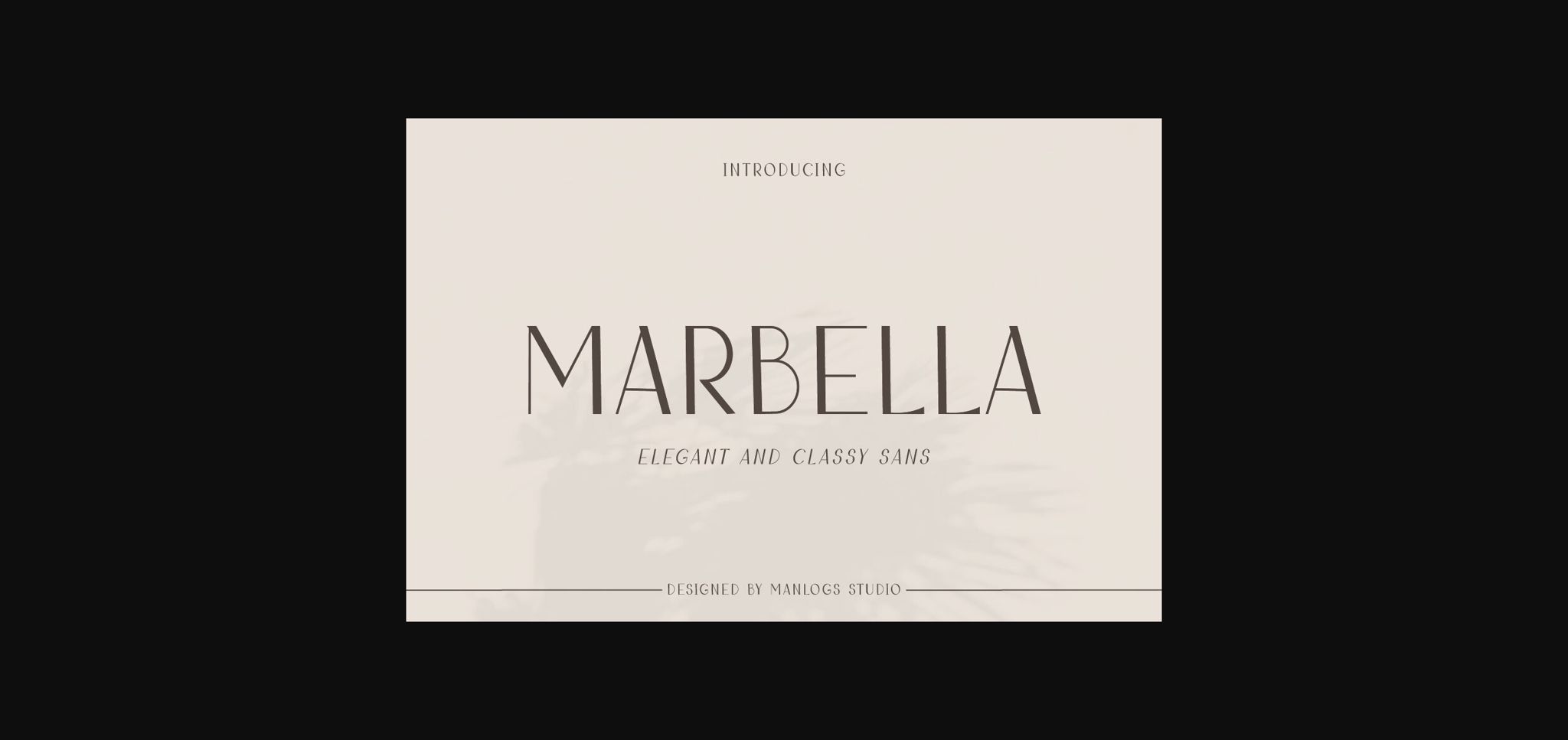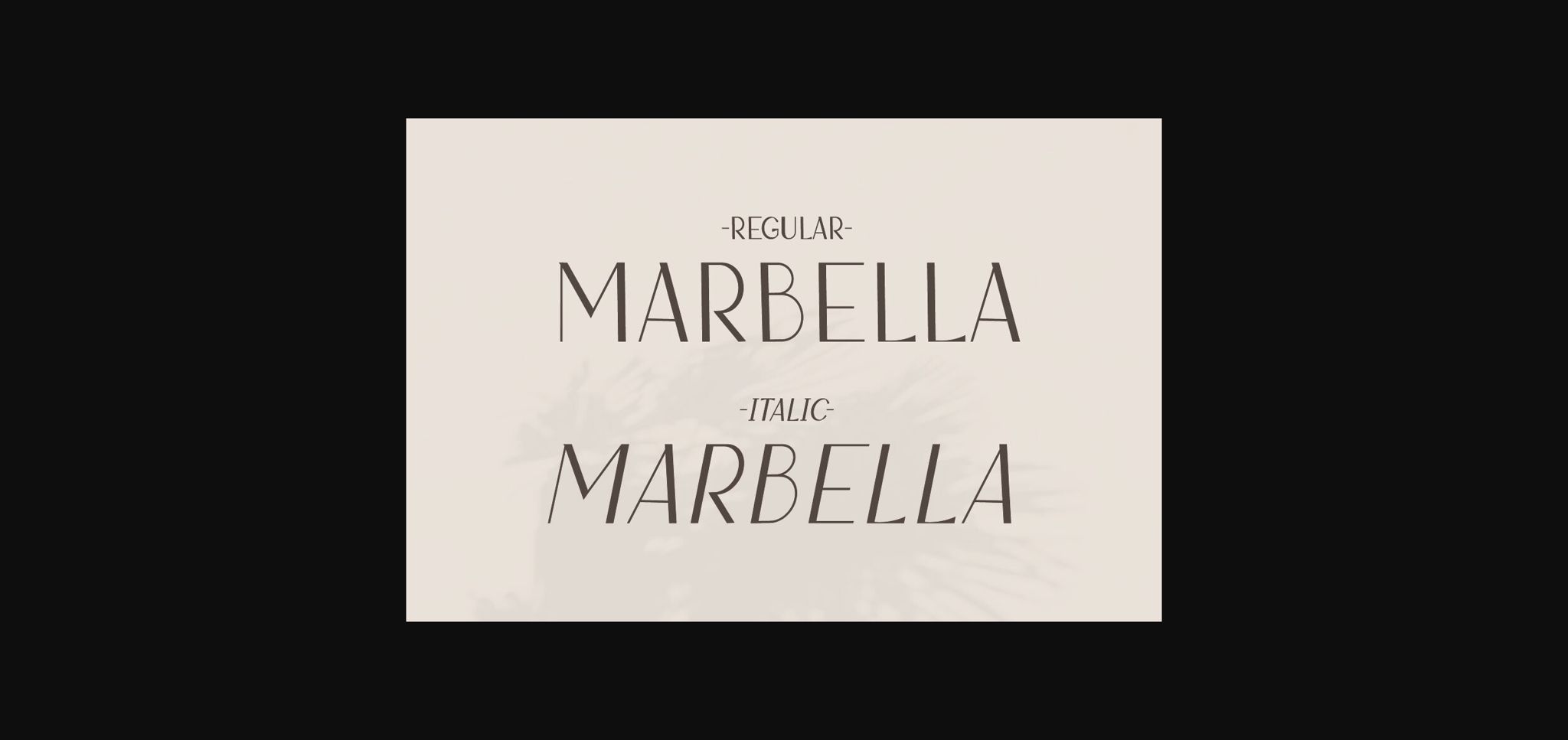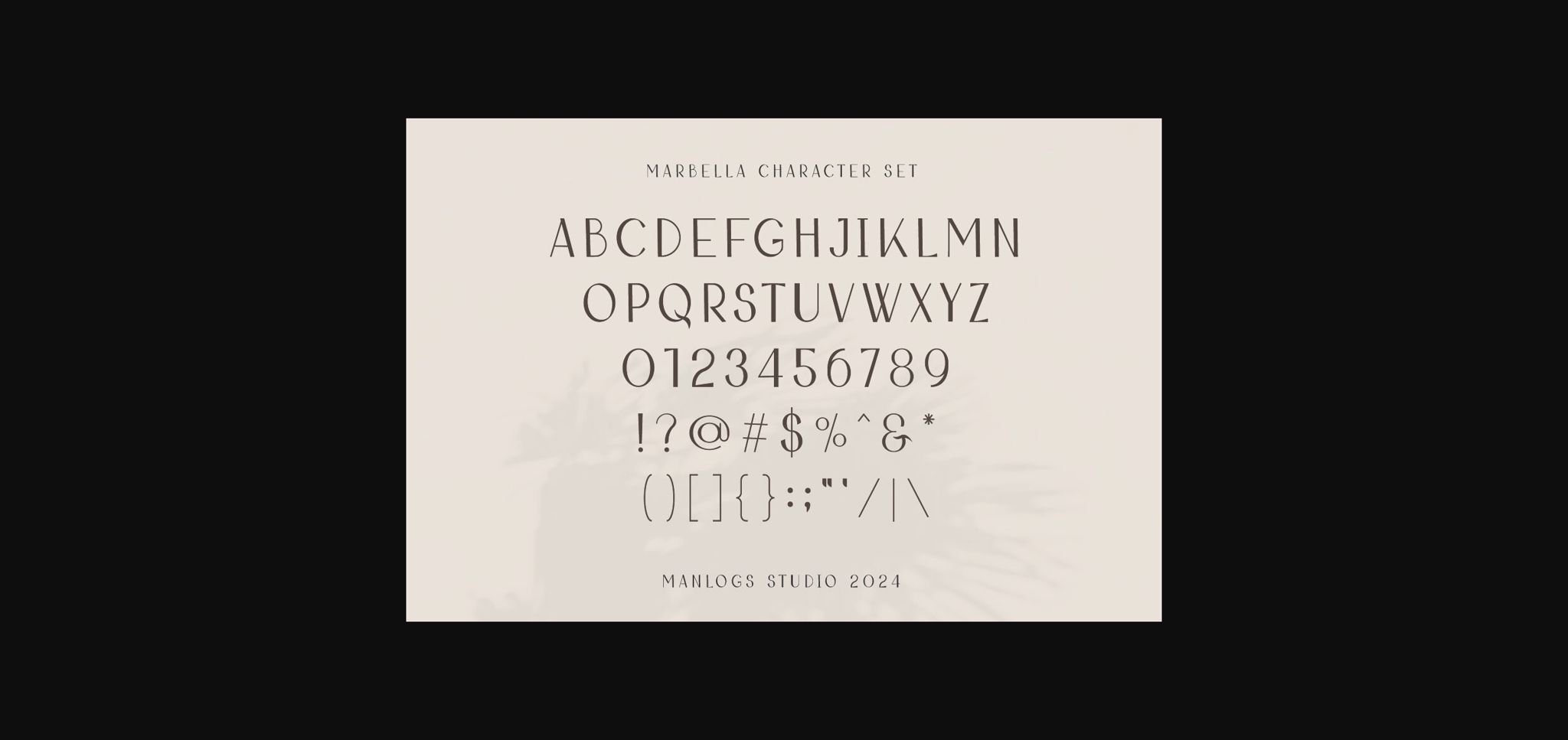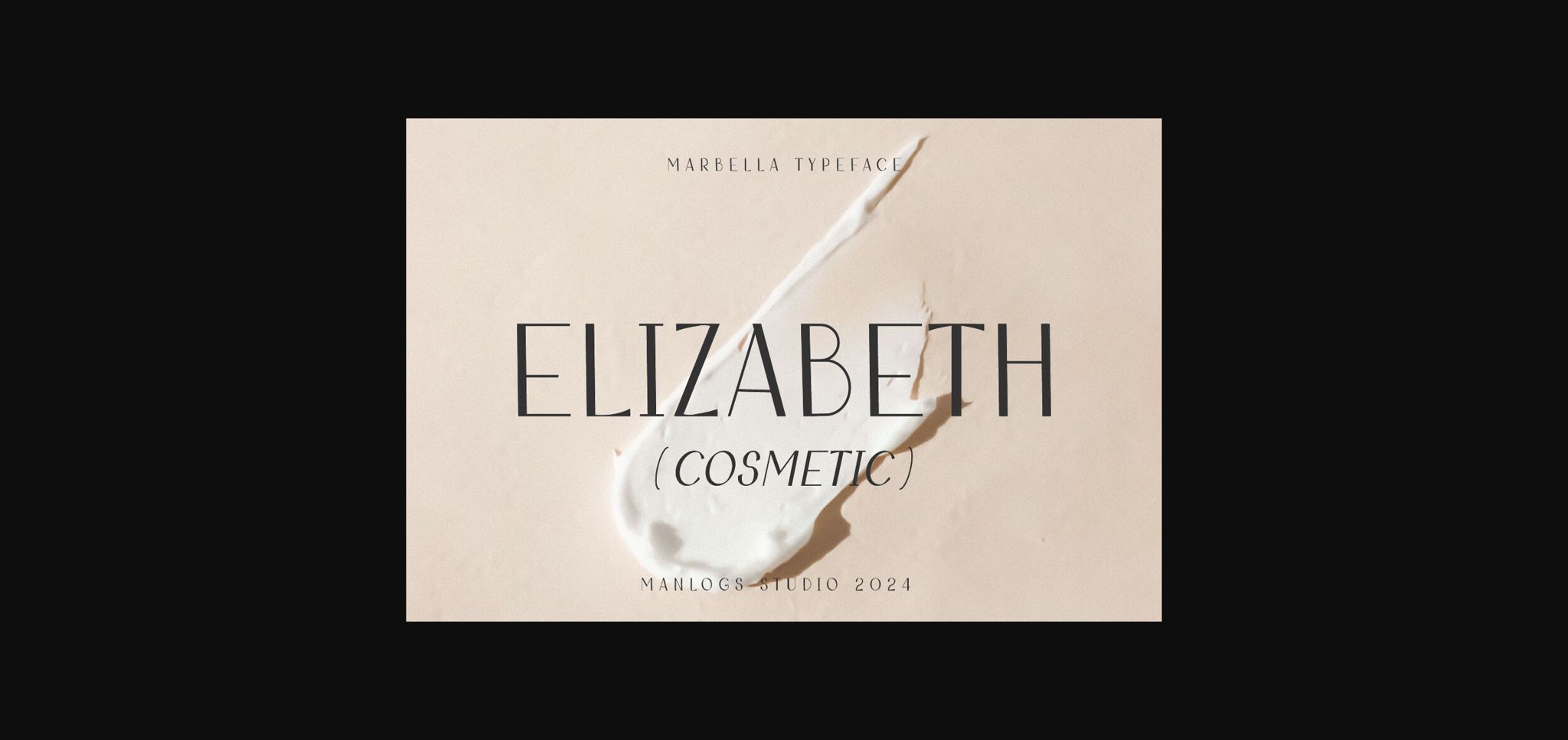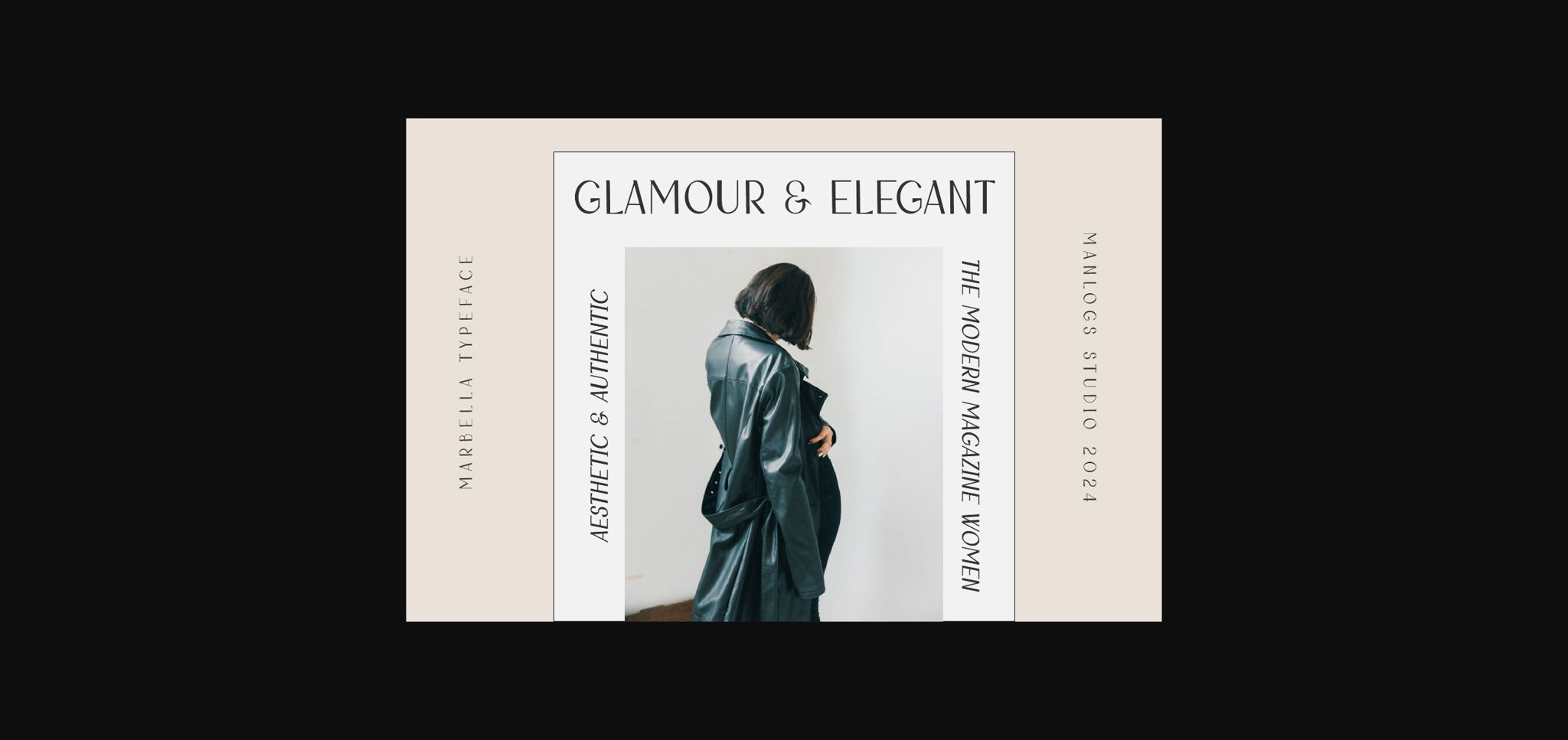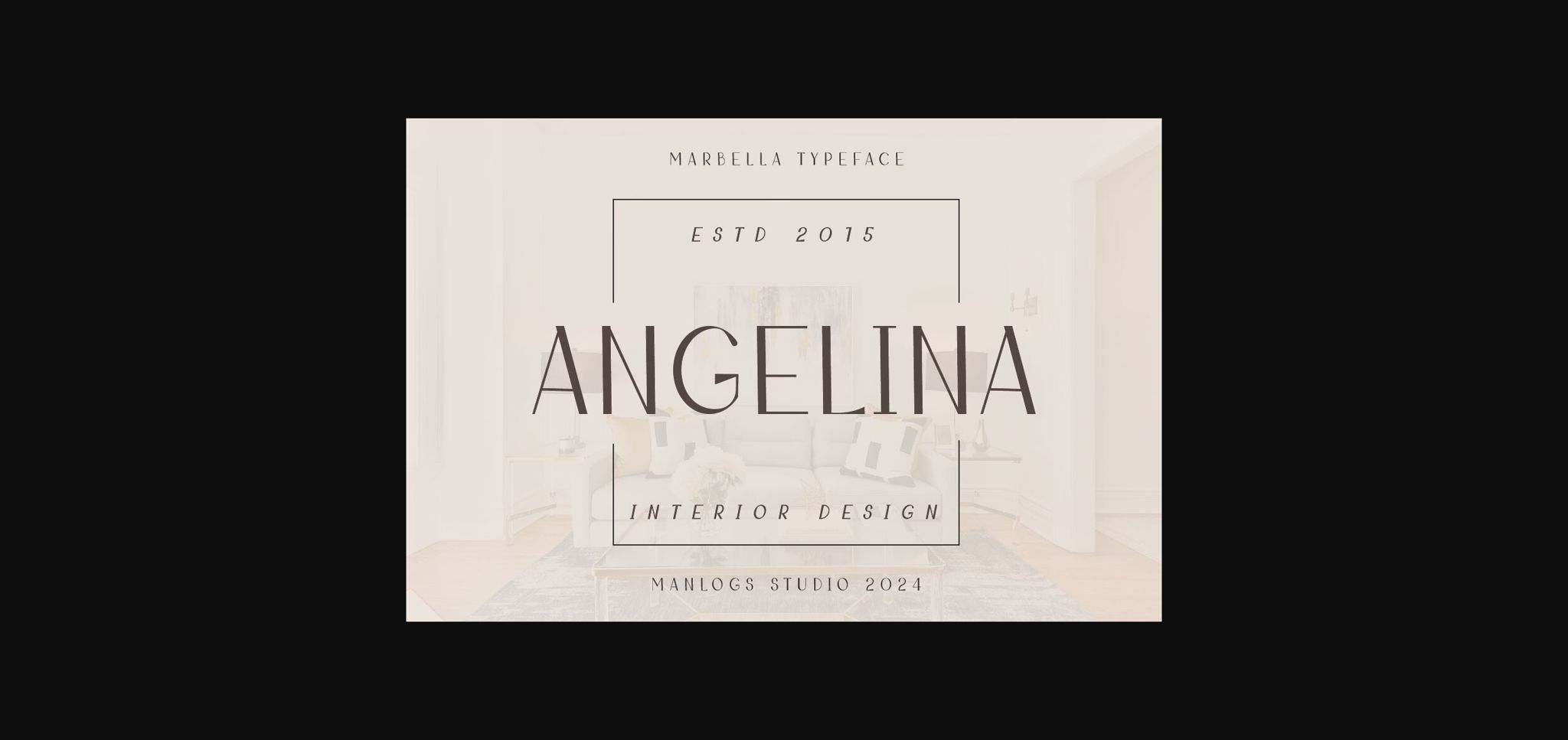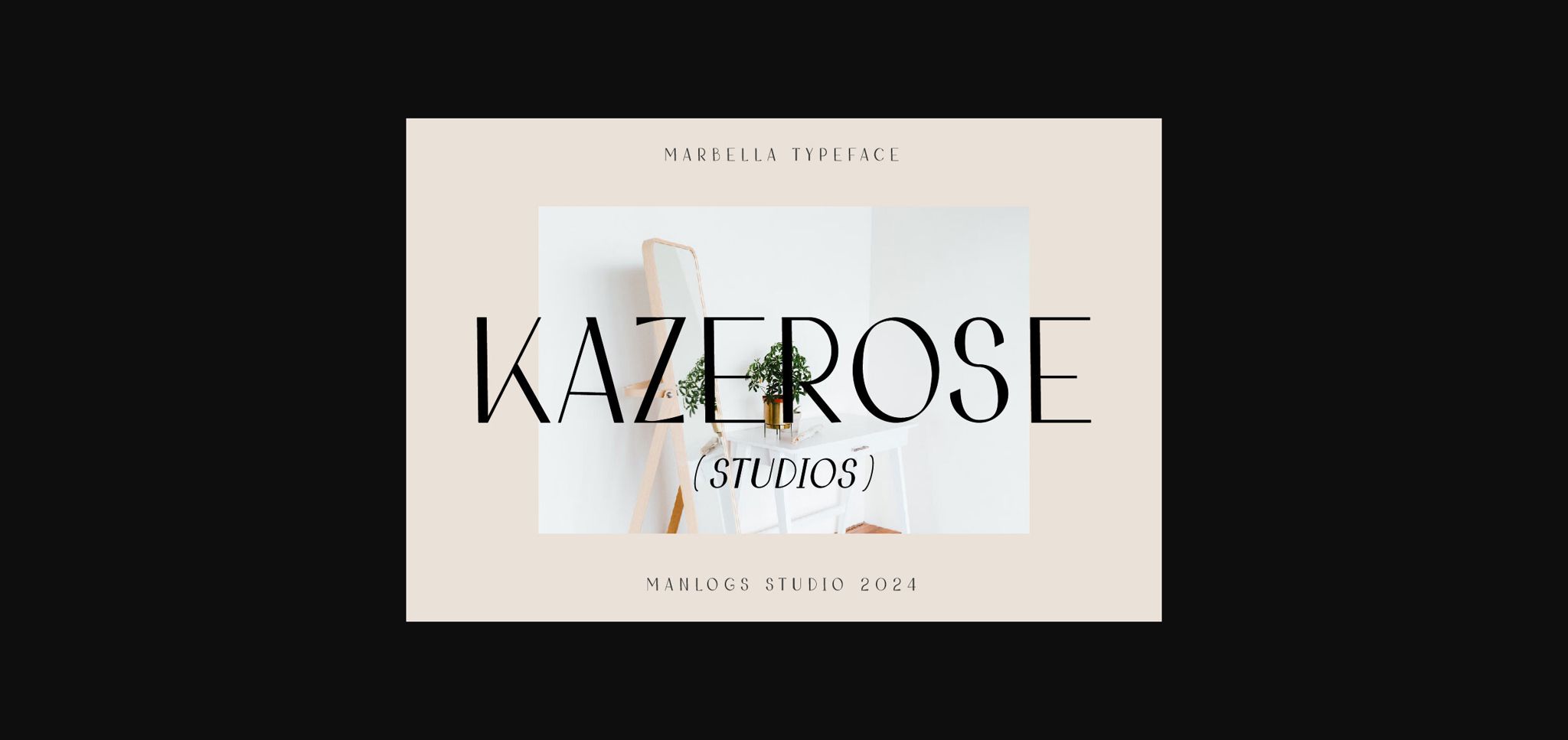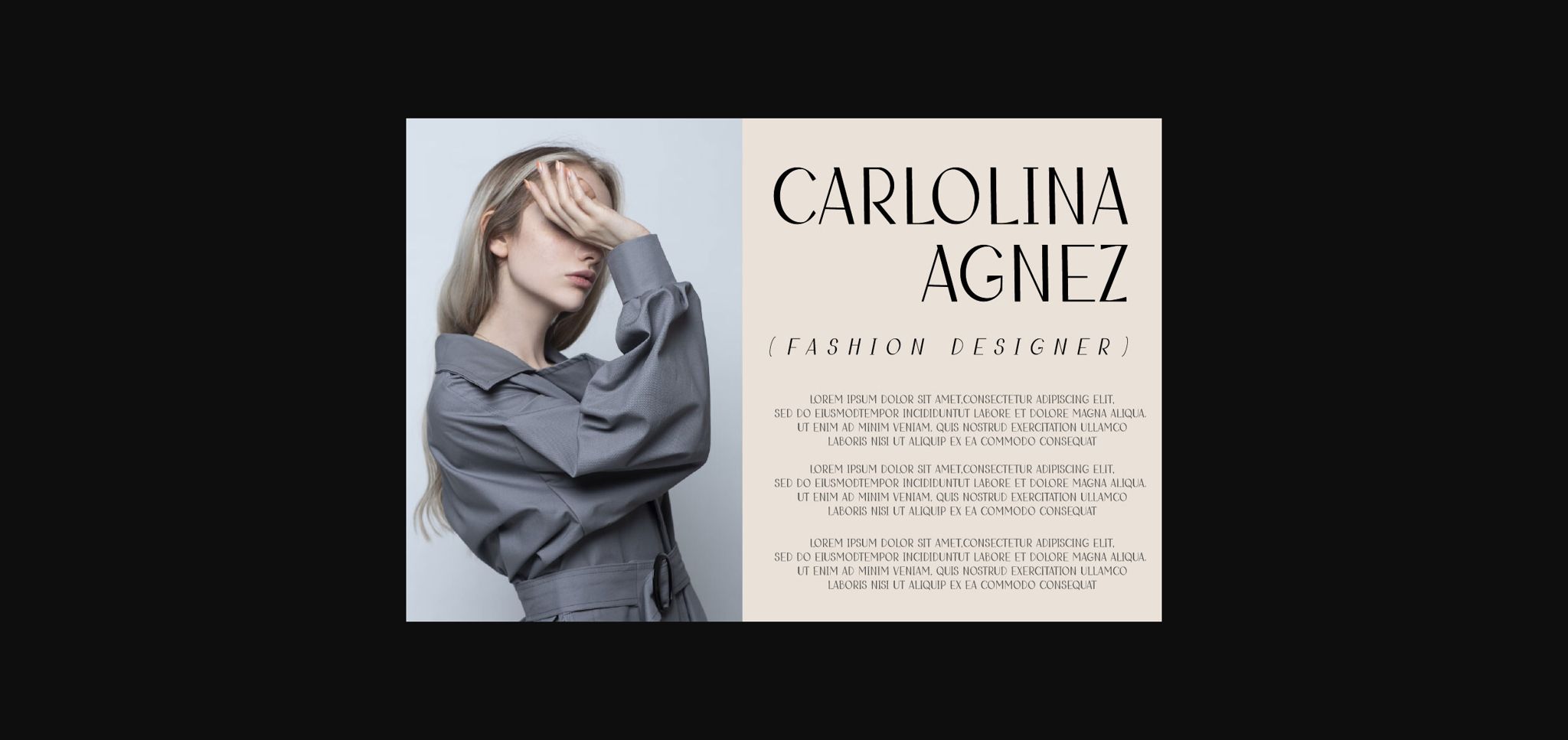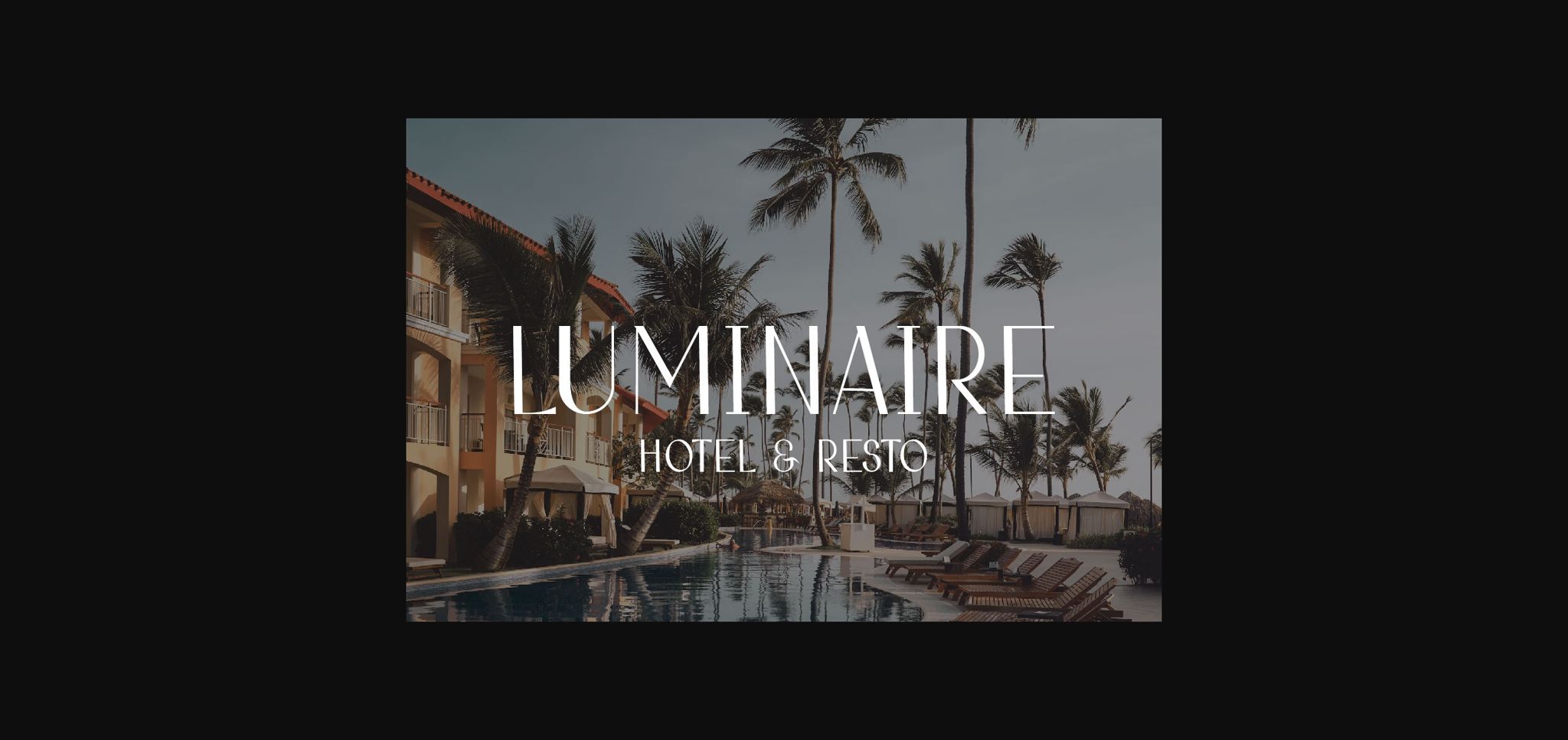
Marbella Font
About Marbella Font
Marbella is a stylish and incredibly elegant sans serif font. It is defined by smooth curves and perfect for the purposes of designing templates, brochures, videos, advertising branding, logos, invitation, layout design, elegant crafting, beauty design and more.